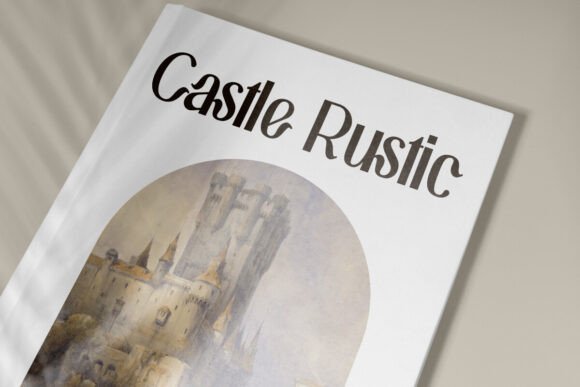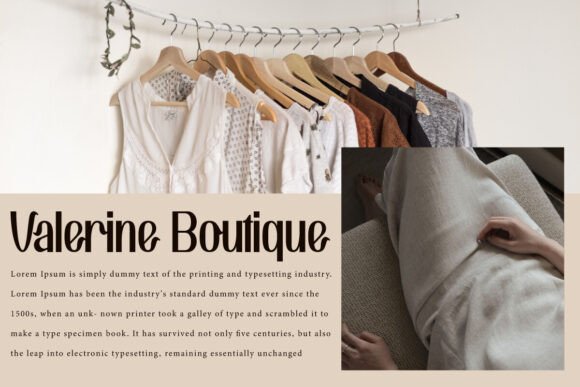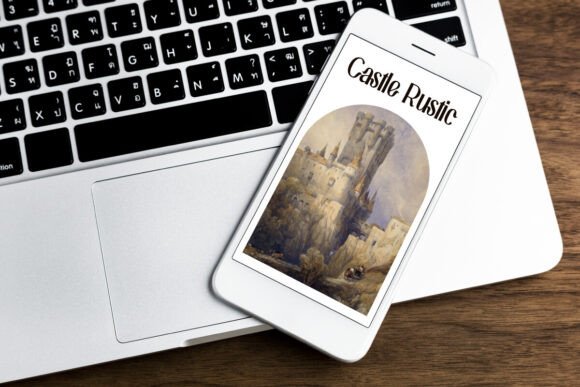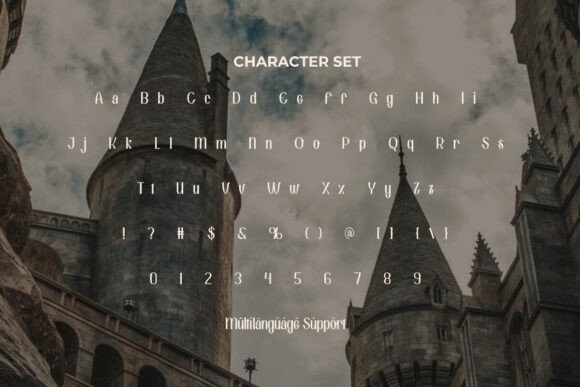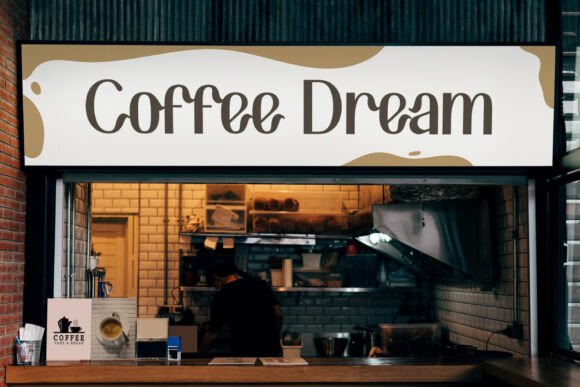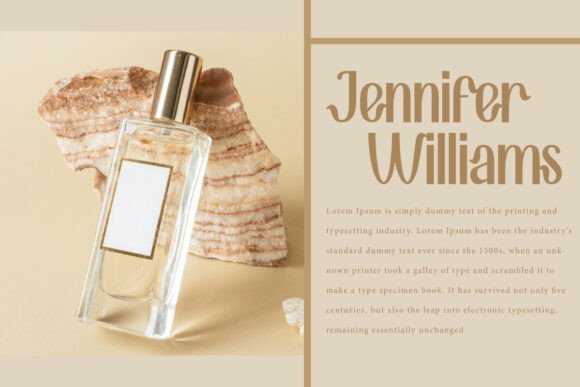
Discover the Charm of Castle Rustic Font: A Medieval-Inspired Design Essential
Have you ever been in the middle of a design project, and suddenly, you just can’t seem to find the right font? I recall a particularly frustrating experience while working on a branding project for a historical hotel. My client wanted a font that would transport their customers back in time to the medieval era, but everything I tried seemed either too modern or too cliché. That’s when I stumbled upon the Castle Rustic Font, and it was love at first sight! 💕
A Personal Review: What I Love About Castle Rustic Font
Castle Rustic Font is an aesthetic sans serif display font that draws inspiration from the old medieval retro era. Here are some things I absolutely love about it:
- ✨ Unique Vintage Feel: This font brings a distinctive vintage charm to any design, making it perfect for projects that require a touch of nostalgia or historical flair.
- ✅ Versatility: Whether you’re working on brand image, cover design, custom projects, invitations, labels, marketing materials, menus, posters, product packaging, quotes, signage, stationery, or web design, Castle Rustic Font fits seamlessly into any creative endeavor.
- 💡 Ease of Use: The font is incredibly easy to use, even for those who are new to design or typography. Its clean lines and clear letterforms make it highly legible.
While Castle Rustic Font is incredibly versatile and beautiful, there are a few minor quirks to be aware of:
- 🤔 Limited Use in Body Text: Due to its display nature, Castle Rustic Font might not be the best choice for extensive body text. It’s primarily designed to make a statement and draw attention.
- ⚠️ Requires Attention to Spacing: Like many display fonts, it may require some manual adjustment to letter spacing to ensure optimal readability and aesthetics.
- Experiment with the font’s OpenType features, such as stylistic alternates, to add more character to your text.
The Backstory Behind Castle Rustic Font
Castle Rustic Font was designed with the intention of capturing the essence of the medieval era in a modern, accessible way. The designer aimed to create a font that would not only evoke the grandeur of ancient castles but also be versatile enough for a wide range of design applications. The result is a font that feels both nostalgic and contemporary.
Q: What type of projects is Castle Rustic Font best suited for?
A: Castle Rustic Font is perfect for projects that require a vintage or medieval touch, such as branding for historical hotels, event invitations, packaging for artisanal products, and more.
Q: Is Castle Rustic Font available in different weights or styles?
A: The availability of different weights or styles depends on the specific version of Castle Rustic Font. Some versions may offer variations to provide more flexibility in design.
Q: Can I use Castle Rustic Font for digital media?
A: Absolutely! Castle Rustic Font is versatile enough for both print and digital media, making it suitable for websites, social media graphics, and more.